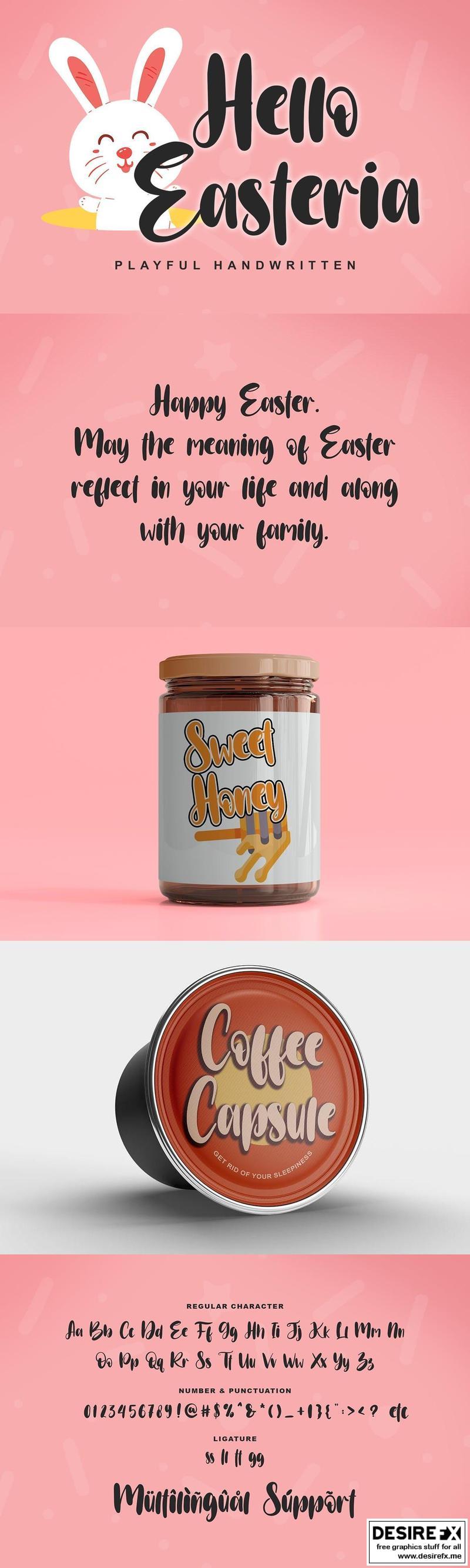
Hello Easteria E3W3FFM
Hello Easteria is a new, fresh, sweet, and unique handcrafted font. It’s ideal for branding and decorating your projects. Hello Easteria font has a classy and modern look that can be used for logos, branding, easter, invitations, posters, advertisements, stationery, animated films, social media posts, youtube channel, and much more! It is PUA coded which means you can access all the glyphs and sweeps easily!
- Support multilingual; ä ö ü Ä Ö Ü ß ¿ ¡
- Numerals & Punctuation
- lowercase and uppercase letters
- Ligature